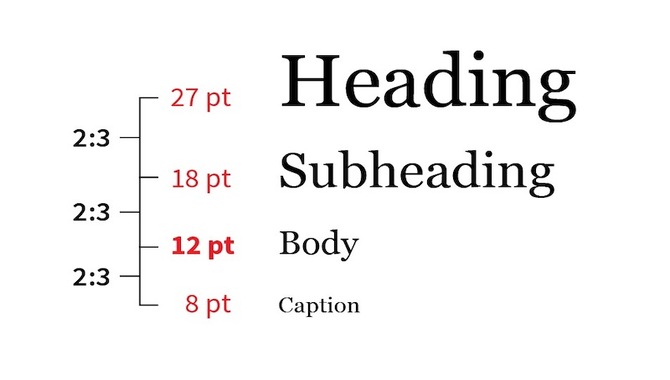
Font size is the height of a font measured in points, commonly used in print design and typography. Choosing the appropriate font size between 10-12 points can impact readability and should be selected based on the intended use and audience.
As a content writer or designer, knowing the various ways to measure fonts is essential. Here we will cover everything you need to know about how font size is measured. We will go through the different methods of measuring font size, including eye, touch, pixel, measurement, and scale.
You will also learn about the difference between font size and point size. So whether you are a beginner or an expert in design and typography, this blog has something for everyone.
How Is Font Size Measured?
Font size is typically measured in points, with one point equaling 1/72 of an inch. This measurement system has been handy for centuries and is still the standard in the printing industry. However, in the digital age, font size can also measure in pixels, ems, or percentages.
Pixels are a unit of measurement based on screen resolution and are commonly handy for web design. Ems and percentages are relative measurements considering the parent element’s font size. When designing for print or digital media, it’s important to consider which unit of measurement is most appropriate for your project and audience. Here are some ways how the font size is measured.
By Eye
Measuring a font’s size has been easier in various ways, like ‘By Eye’. This method involves using points as a unit of measurement in which one point is equal to 1/72 of an inch and is based on the height of the lead block used for printing. Font size can also measure in pixels or em units in digital fonts.
Different fonts may have varying sizes at a particular point measurement. Adjusting font size is possible through software like Adobe Photoshop and Microsoft Word. With these options available, users can enhance legibility in their typography designs.
By Touch
Measuring font size can do through various techniques like ‘By Touch.’ It involves using standard measurement systems such as points or pixels. While printing designs measure font sizes using points (72 points = 1 inch), pixels represent the smallest unit of an image on-screen in digital designs. Further adjustments can come with percentages or ems – based on the parent element’s font size.
Different ways to measure fonts include pica (1/6 inch), millimeter, and centimeter, while differentiating fonts from point sizes is crucial, which determines the height of their metal body, per typography experts. With CSS’s x-height property for web design and different typefaces like Times New Roman or Arial varying in size at a specific point measurement.
By Pixel
Pixels are integral to measuring font sizes in digital designs since they provide a precise method. You can use ems or percentages to measure font sizes in responsive web design. Points are generally handy in print designs as one point equals 1/72 inch. However, different fonts may have varying sizes despite being measured at the same point measurement.
Measuring font size is vital in achieving legibility and proper typographical composition in your website or document. The correct choice of typeface and text size is critical for legibility; however, other factors such as x-height and kerning also play a significant role in readability.
By Measurement
Font sizing is an essential aspect of typography and designing texts. There are different ways to measure font sizes. Font size generally measures in points, with one point equivalent to 1/72 of an inch. However, there are other units of measurement such as pixels (smallest unit on a screen) and ems or percentages (relative measurement based on parent element).
Programs such as Microsoft Word and Adobe Photoshop have functionalities that allow for adjustments to font sizes. Increasing text sizes can improve legibility but also affect design and layout.
It’s important to remember that fonts come in different types, such as serif or sans-serif typefaces like Times New Roman or Arial. Other terms associated with sizing include x-height, which refers to the height of glyph x, and line height, which determines the vertical space between lines of text.
By Scale
Font size can alter using various units of measurement like points or pixels; points are a traditional unit, while pixels refer to the number of dots making up the letters. Font sizing can also do using ems or percentages for responsive web design.
The difference between font size and point size lies in their definition, where font size refers to glyph height and point size refers to metal body height. Other units measuring font sizes include ems and percentages for responsive web design. It is noteworthy that different ways are handy for measuring fonts, including by eye or touch and by scale, such as points or pixels.
Difference Between Font Size And Point Size
Font size can measure in various ways, including points and pixels. A point equals 1/72 of an inch, while pixels refer to the dots that make up letters on a screen. Choosing between them depends on context. The height of the uppercase letter “H” is commonly handy as a reference to determine font size.
It’s essential to note that font size isn’t always equivalent to point size in printing or typography. In CSS, you can specify font size using different units like px (pixels), em (based on x-height), or pt (points). Other factors like typeface and kerning can also affect legibility.
Tools And Software For Measuring Font Size
When it comes to measuring font size, multiple units of measurement can be handy. These include points, pixels, inches, millimeters, and more. While pixels have become the most commonly used unit of measurement for digital design with a standard size of 16px for body text, other options like points are still popular.
Programs like Microsoft Word and Adobe InDesign allow users to adjust font sizes using points and pixels. Additionally, CSS offers various ways to specify font sizes using keywords such as em, rem, pt, and px. To ensure legibility and accessibility for your content across different devices and browsers, it’s important to choose the appropriate font size.
Considerations like typeface selection (such as Arial or Times New Roman), glyph design, and kerning all play a role in determining the optimal font size for your content.
Benefits Of Accurate Font Sizing
Choosing the right font size is crucial because it impacts legibility and readability. We usually measured Font sizes in points or pixels, with one point equaling 1/72 of an inch. The appropriate font size should choose based on individual design preferences and typeface characteristics like x-height and glyph design.
Different fonts can look different even at the same font size due to their unique designs and styles. The correct font size can enhance user engagement and accessibility by ensuring your content is easily readable.
Tips For Choosing The Right Font Size
When determining the appropriate text size for your content, it’s important to consider several factors, like who your target audience is and what device they’re viewing it on. Depending on your requirements, you can use different ways of measuring font sizes, such as pixels, points, inches, ems, or millimeters.
Font size is an essential aspect of typography in web design and printing that must give utmost importance while designing any project. It’s vital to choose the right fonts as per their weight, the height of the metal body (x-height), glyph design characteristics (such as kerning), etc. Different fonts may appear differently, even at the same font size, due to varying designs and typeface families such as Times New Roman or Arial. The ‘
Software For Measuring Font Size On Computers
Designers and developers often use software to measure font size on computers. Typically measured in points or pixels, font size determines the height of the letters used in the text. One point equals 1/72 of an inch, while one pixel is a single dot on the screen.
Different fonts may appear differently due to varying designs and styles, even at the same precise font size. It is important to note that the actual size of a font may vary depending on the device you are using or screen resolution settings. Using software to measure your fonts can help maintain consistency across all devices and platforms.
Font size is a crucial aspect of creating effective and legible content. Measuring font size accurately is equally important as it affects your content’s readability and user experience. Different methods, such as measuring by eye, touch, pixels, or scale, can be handy to measure the font size.
Accurate font sizing leads to better user experience, accessibility, and overall professional-looking design. Choosing the right font size can make or break your communication efforts with your audience. There are tools and software available for measuring font sizes on computers that can help you ensure accuracy in your typography. We hope now you can understand how font size is measured.
Frequently Asked Questions:
1.What Size Is 12pt Font?
Ans. A 12pt font is 12 points in height, equivalent to 1/6 of an inch. Font sizes commonly measure in points, with other sizes including 10pt, 14pt, and 16pt. Most word-processing software allows users to adjust font size.
2.How Big Is 24 Point Font?
Ans. The height of 24 point font is around 1/3 inch. Font size measures in points, with 1 point being 1/72 of an inch. Increasing the point size makes the font appear bigger, and software and formatting options can also adjust font size.
3.How Are Font Size Pixels Measured?
Ans. Font size can measure in pixels, points, or ems, but measuring in pixels is the most common for digital screens. One pixel equals one dot on the screen. Experts recommend a font size between 16 and 18 pixels for digital content to ensure optimal readability.
4.What Is The Unit Of Word Font Size?
Ans. The standard unit for word font size points, with one point being equal to 1/72 inch or 0.35 mm. Other measurement units include pixels, ems, and the parent element’s font size percentages. It’s crucial to select a suitable font size for improved readability and accessibility.
5.How Is The Font Size Measured?
Ans. Font size measures in points (1 point = 1/72 inch), pixels, or ems. The chosen size affects the text’s readability and accessibility. The right font size is crucial for creating visually pleasing and easy-to-read content.